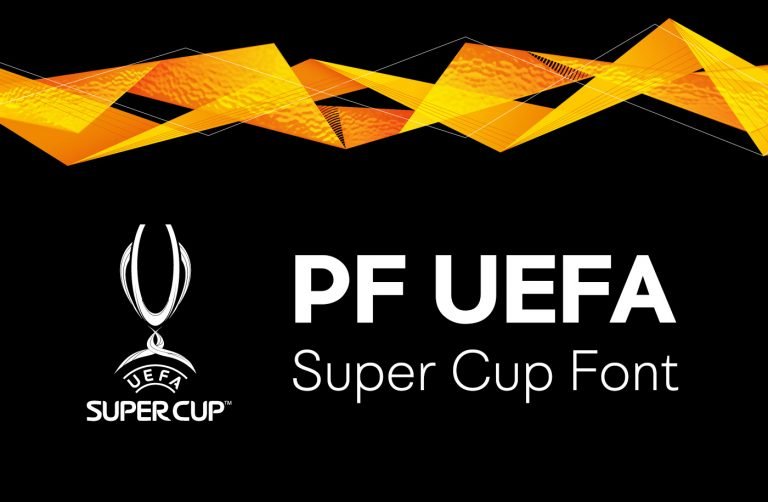
PF UEFA Font
If you are designing a logo or any other project, this is a good choice. Introducing PF UEFA Typeface. It is designed and shared by Andrew Bagsit. PF UEFA is a modern logo sans serif typeface. Its round shaped elements and a bit of straight lines make it the perfect choice to create posters that speak for themselves, logos, headlines, magazine’s covers, tags and banners.